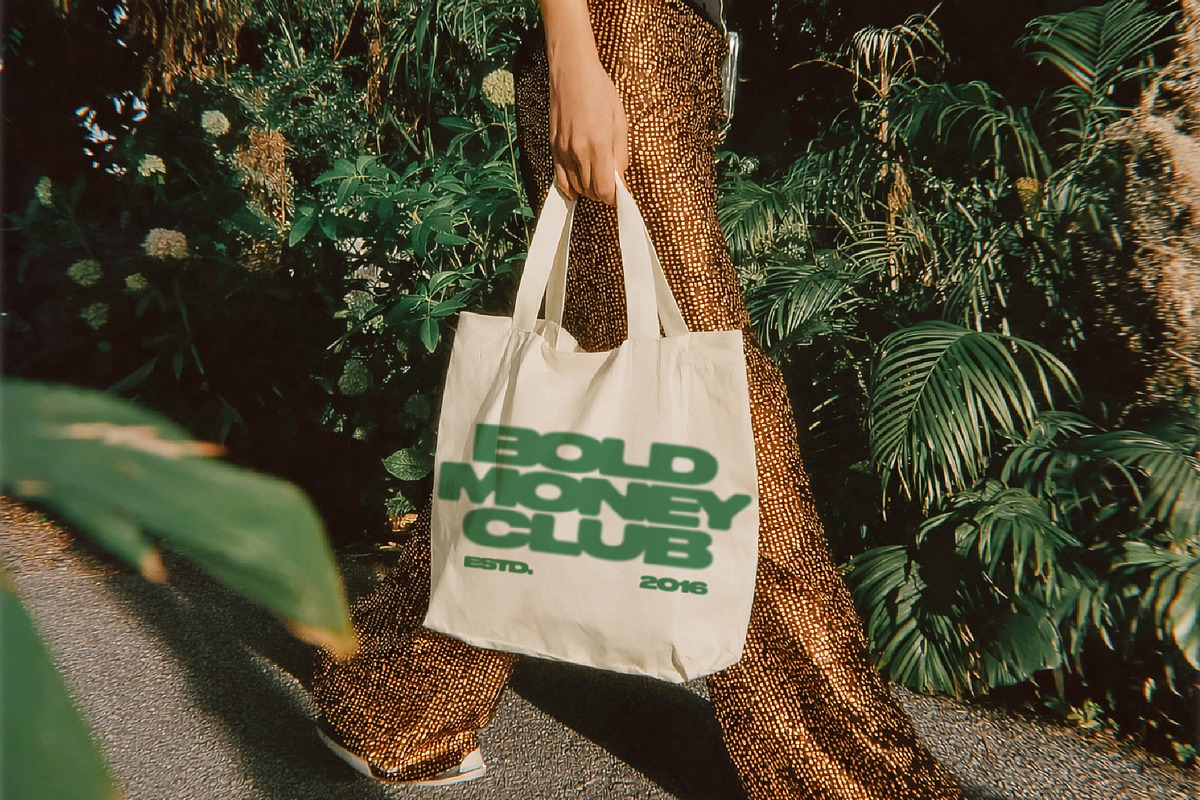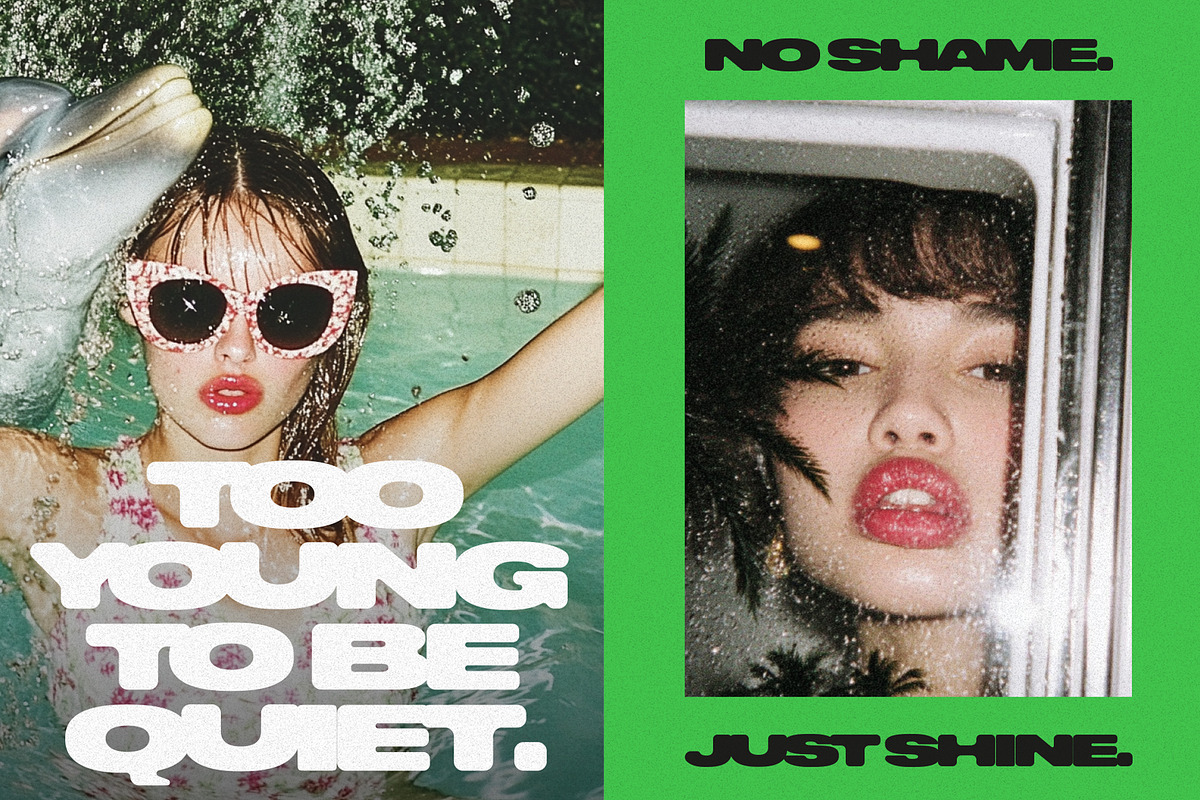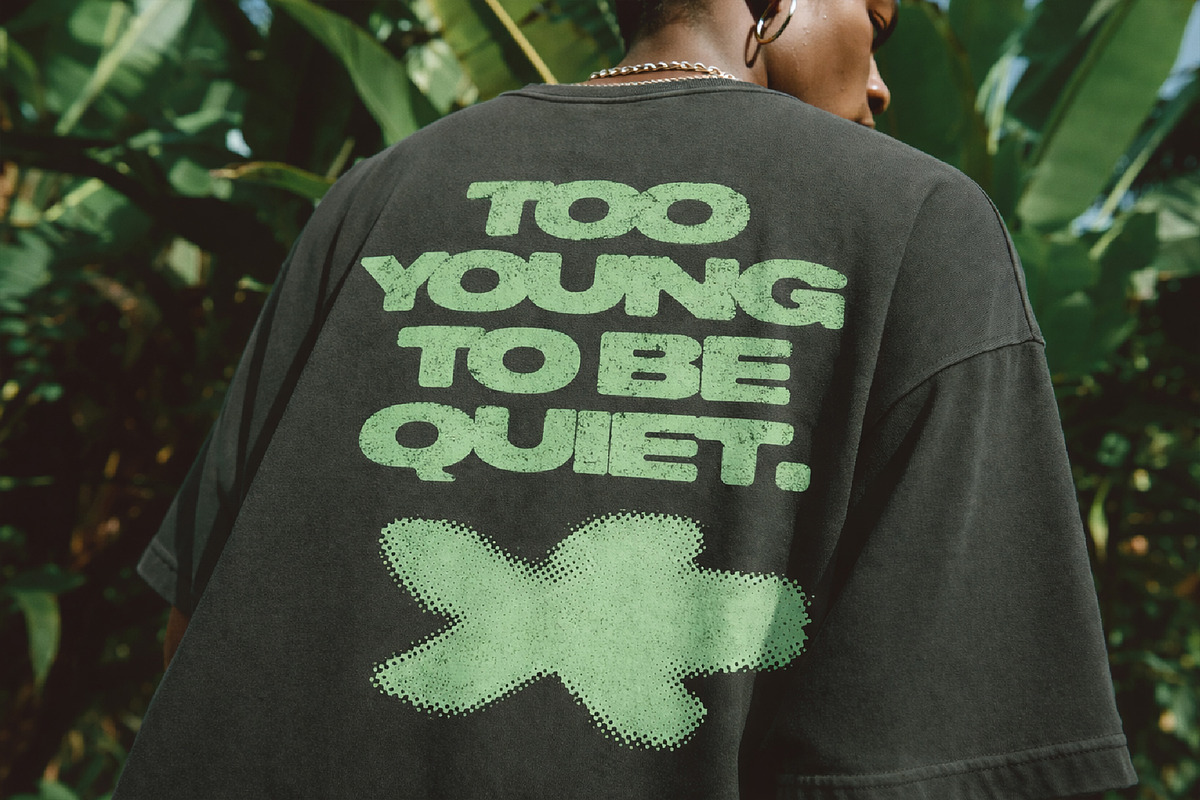
Bold Money is a bold, chunky display font with a unique “melted” and connected look. With its all-caps structure and sticky letterforms, Bold Money is perfect for eye-catching headlines, logos, posters, social media graphics, branding, and modern creative projects. This font was designed to stand out — loud, confident, and impossible to ignore.
- All Caps Font
- Bold & Heavy Weight
- Unique Connected Letter Style
- Modern & Experimental Look
Perfect For:
- Logos & Branding
- Posters & Flyers
- Social Media Graphics
- Gaming & Tech Designs
- Streetwear & Merch
- YouTube Thumbnails
- Album Covers
- Headlines & Titles